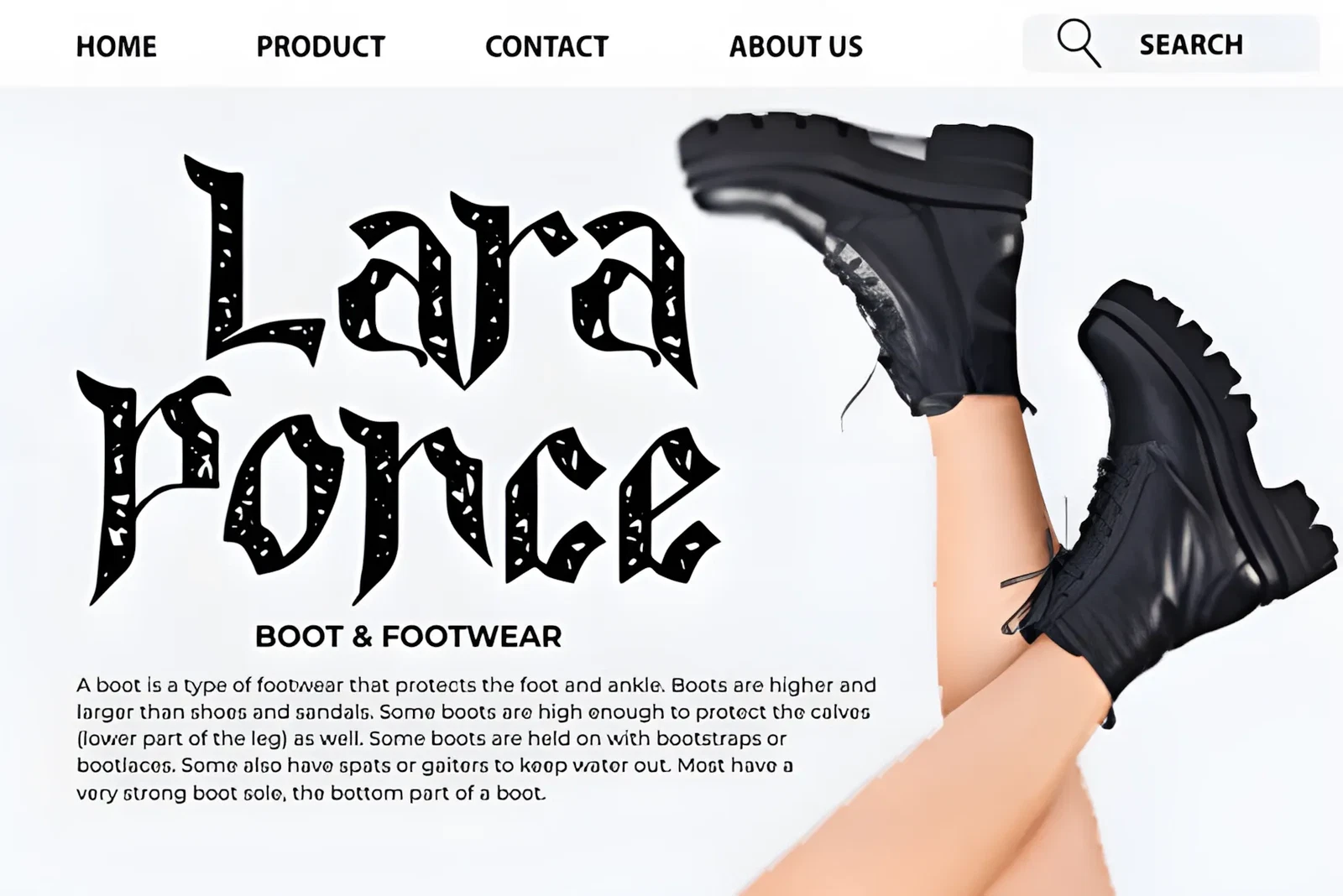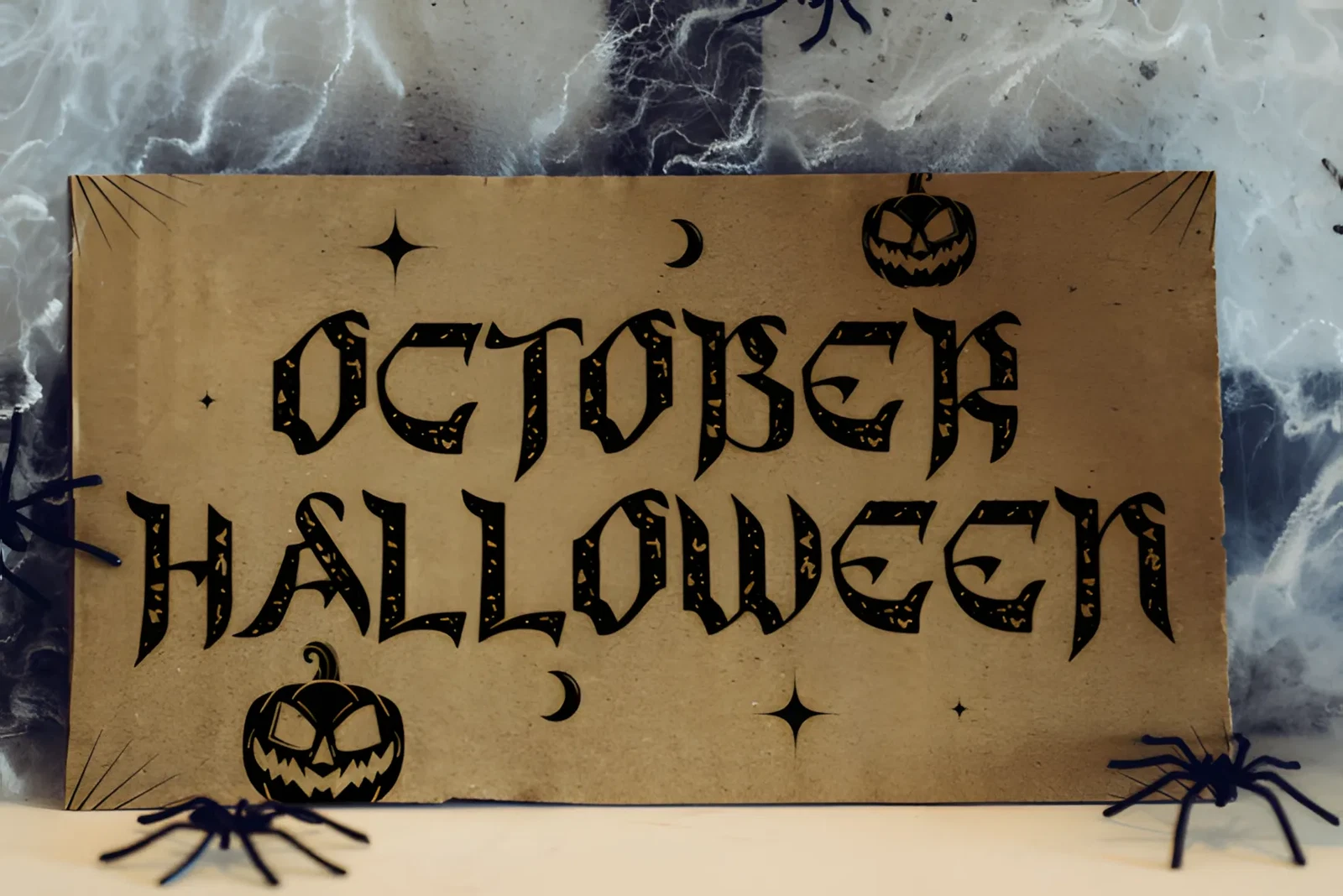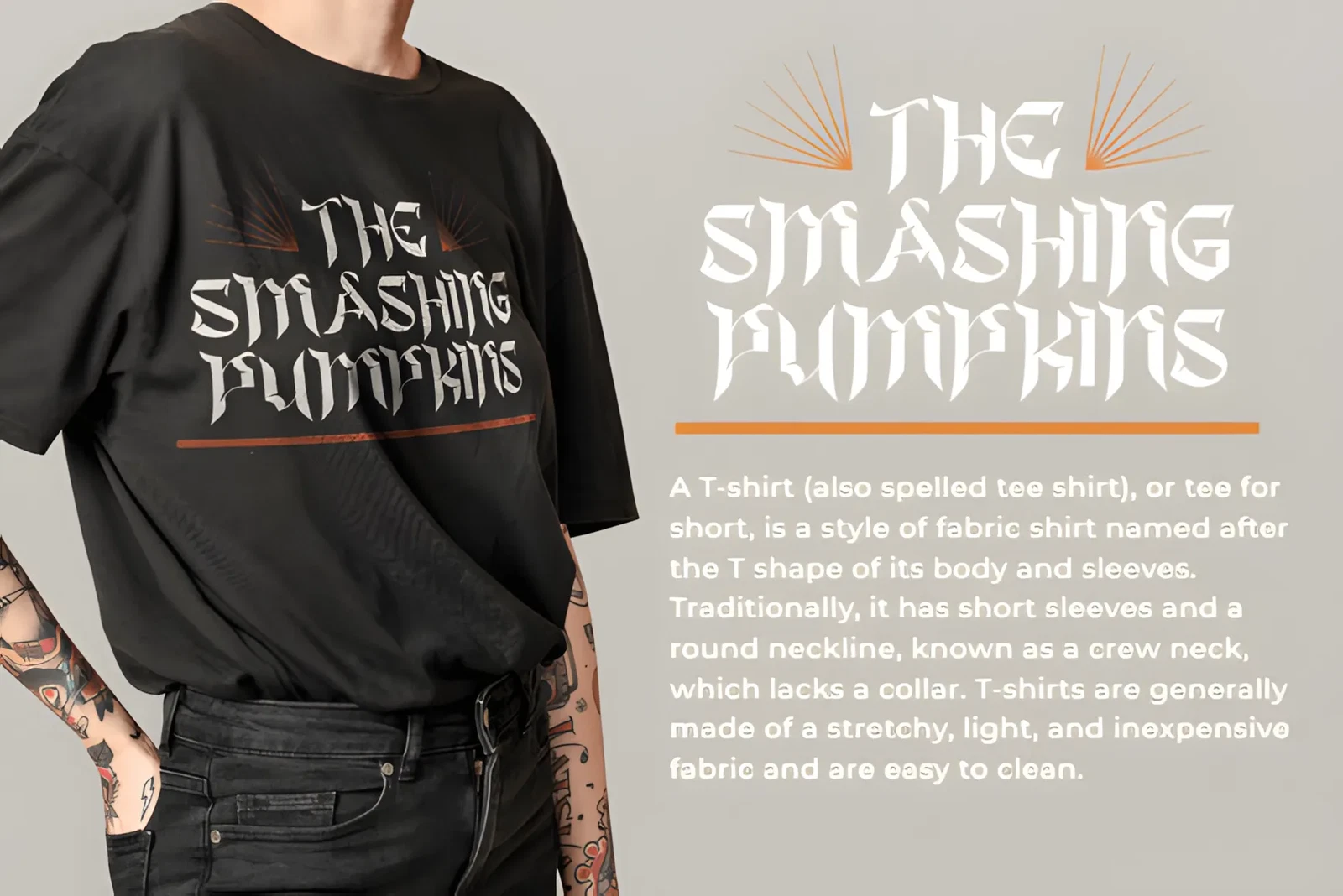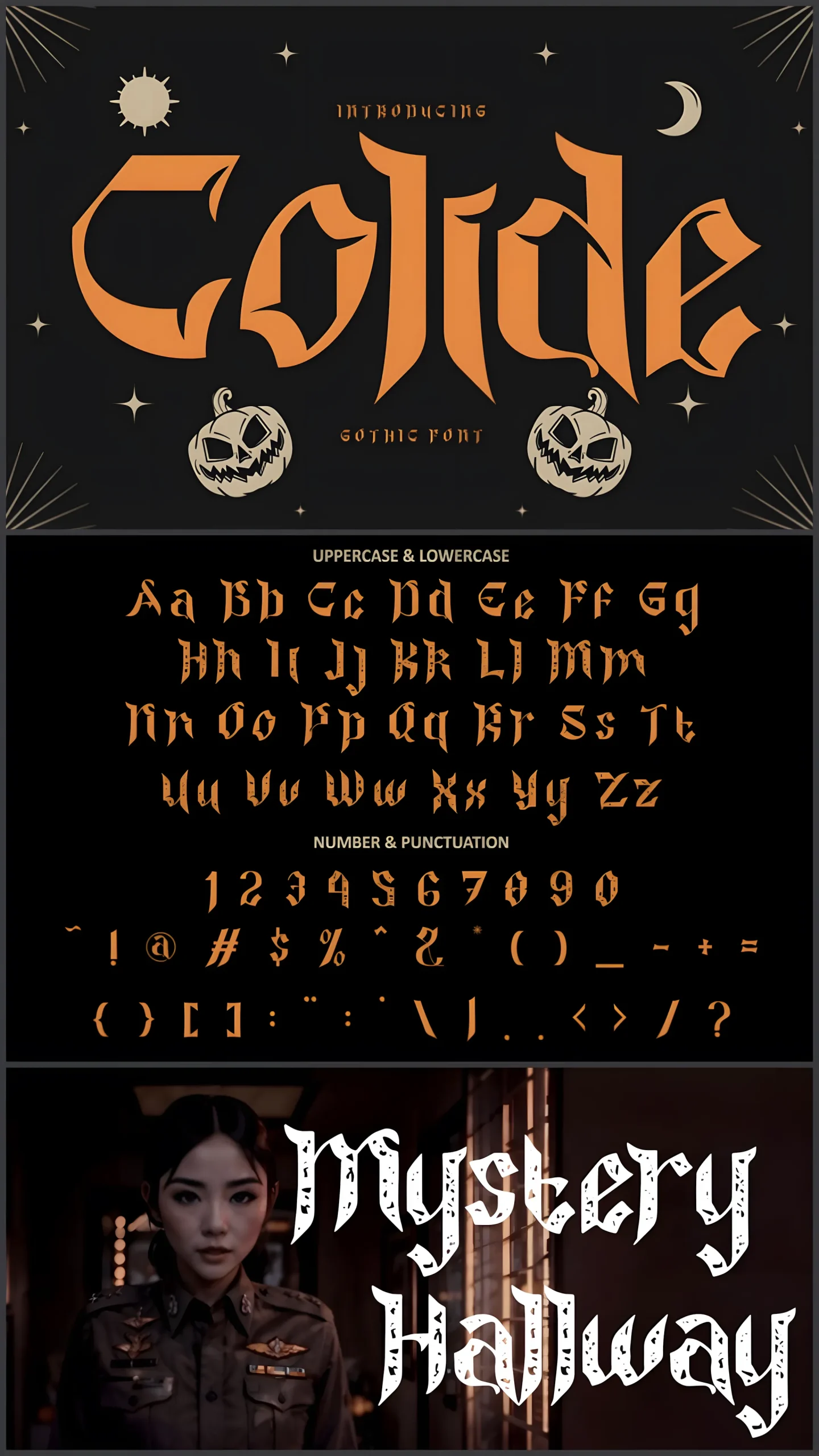
Some gothic fonts follow tradition too closely and end up looking predictable. Colide Font takes a different path. It keeps the recognizable blackletter foundation but introduces sharp cuts, pointed tips, and unconventional details that immediately set it apart from classic gothic styles.
This is a display typeface designed to feel edgy, dark, and expressive. It carries a sense of tension and intrigue, making it especially suitable for projects that need a dramatic and slightly unsettling visual tone.
Visual Style and First Impression
Colide Font stands out because of its distinctive structure. The letterforms feature pointed ends and a visible cut line running through the body of each character. This detail gives the font a fractured, almost broken appearance, which adds depth and personality.
Instead of looking ornamental for decoration’s sake, the font feels intentional and bold. The gothic influence is clear, but the execution feels modern and experimental rather than historical.
This combination creates a typeface that feels aggressive, stylish, and visually striking without becoming unreadable.
Clean and Textured Variations
One of the strongest aspects of Colide Font is its versatility. The typeface includes two main styles:
- a clean version
- a textured version
The clean version offers a sharper, more controlled look. It works well in branding, logos, and layouts where clarity and precision are important.
The textured version adds roughness and intensity. It feels more raw and expressive, making it ideal for horror-themed projects, dark visuals, and designs that need an extra layer of emotion.
Having both options allows the font to adapt to different creative directions without changing the overall identity.
Designed for Dark and Expressive Projects
Colide Font feels at home in designs that aim to create atmosphere. It works especially well in projects related to:
- horror themes
- gothic aesthetics
- dark branding
- dramatic visual storytelling
The sharp shapes and cut details naturally convey tension and mystery. This makes the font suitable for projects where typography needs to do more than simply display information.
Practical Design Applications
Logos and Branding
Colide Font works surprisingly well in logo design, especially for brands that want to communicate strength, rebellion, or dark elegance. The unique letterforms make logos instantly recognizable.
The clean version is particularly effective for branding, where consistency and readability are important.
Posters, Titles, and Headlines
As a display font, Colide excels in large text. Posters, headlines, and titles benefit from its dramatic presence. The font commands attention without relying on additional effects.
It works well for:
- movie titles
- event posters
- album covers
- promotional graphics
The structure of the letters ensures that text remains readable even at large sizes.
Packaging and Editorial Design
Colide Font also fits well into packaging and editorial layouts. Used sparingly, it adds character to covers, labels, and feature headings.
In magazines and editorial projects, it works best as a headline or accent font paired with a simple body typeface.
Band Logos and Creative Media
The font’s dark and edgy personality makes it a natural choice for band logos and creative media projects. It supports genres and themes that lean toward intensity, emotion, and visual impact.
Readability and Usage Notes
Colide Font is designed as a display typeface, not for long-form reading. It performs best in short phrases, titles, and featured text.
Spacing and size play an important role. Giving the letters enough room allows the cut details and pointed tips to remain clear. When paired with a clean supporting font, the overall layout stays balanced and readable.
Emotional Tone and Design Impact
The emotional tone of Colide Font is dark, intense, and dramatic. It communicates intrigue and tension rather than friendliness or softness.
This makes it ideal for designs that aim to evoke:
- mystery
- fear
- rebellion
- gothic sophistication
The font doesn’t try to be subtle. It is meant to be noticed and remembered.
Colide Font is a gothic display typeface that breaks away from traditional blackletter norms. With its sharp cuts, pointed tips, and optional textured style, it brings a modern and unsettling edge to classic gothic typography.
For designers looking to create dark, expressive, and memorable visuals, Colide Font offers a powerful tool. Used with intention, it adds depth, intensity, and a distinctive voice to any project that calls for gothic sophistication with a hint of horror.